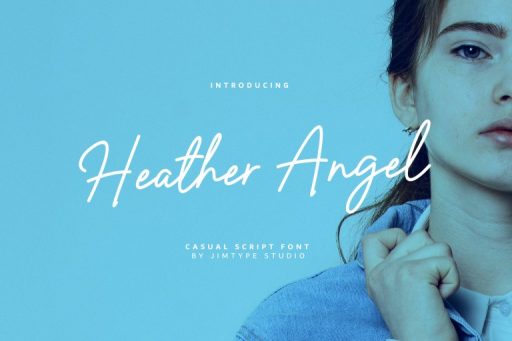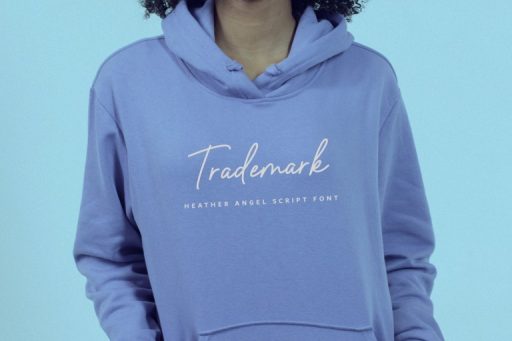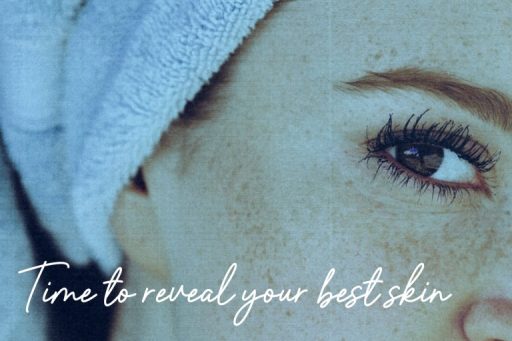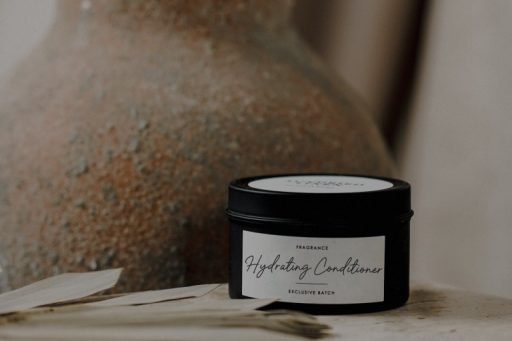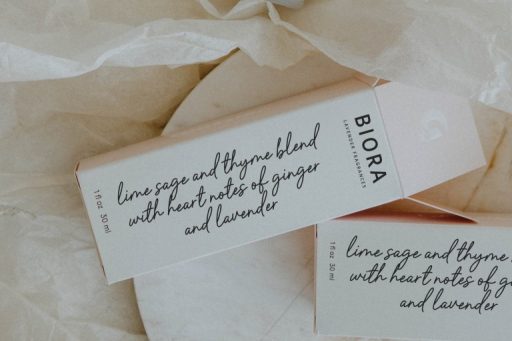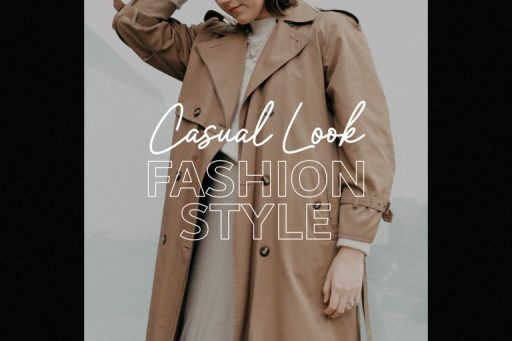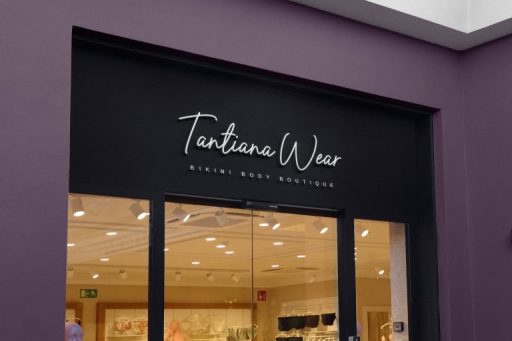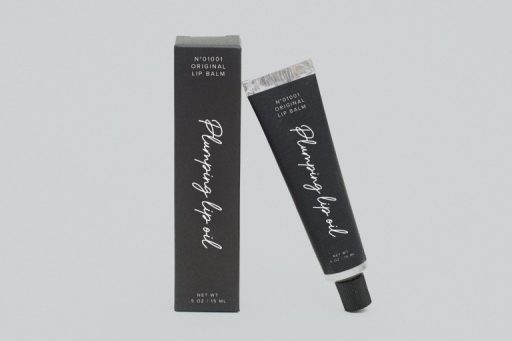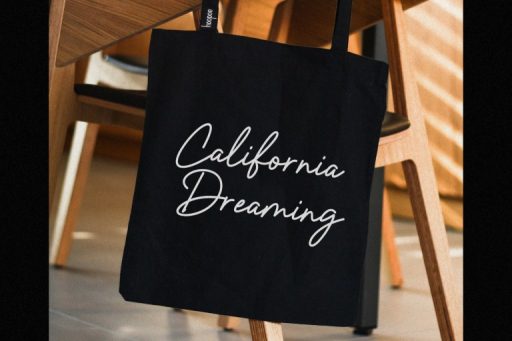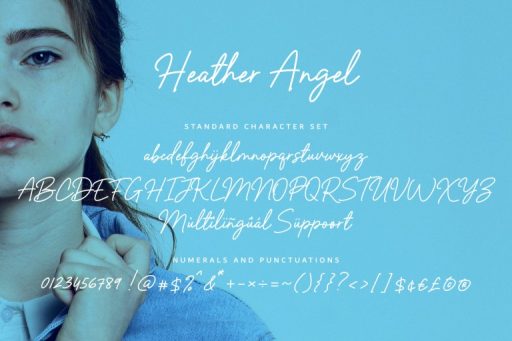
Heather Angel Font
Heather Angel – Signature Business Font
Introducing the new Heather Angel font a feminine type signature with a monoline script that you can use to perfect your design.
Heather Angel is exactly what you think it is. Signature Typeface for branding & advertising. Whether you’re creating a logo, a watermark for a photographer/artist, or creating a stylish ad campaign, this Typeface is an incredible addition to your font library.
• Multilingual Support